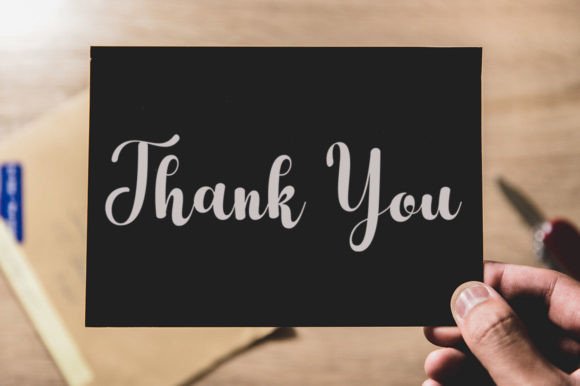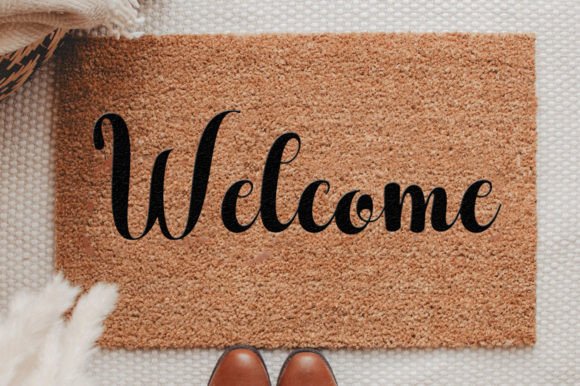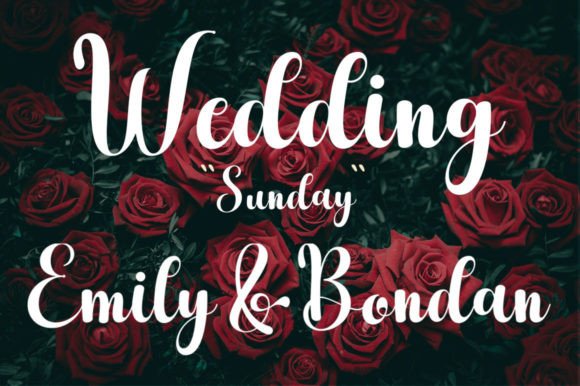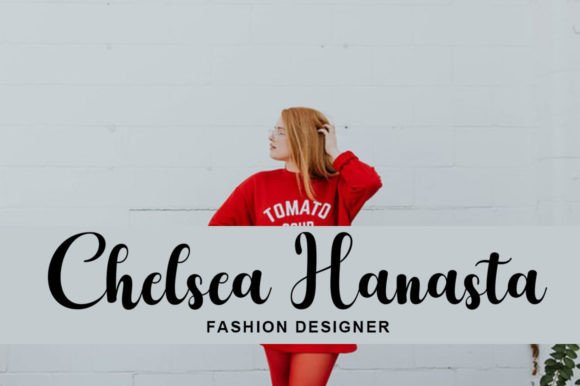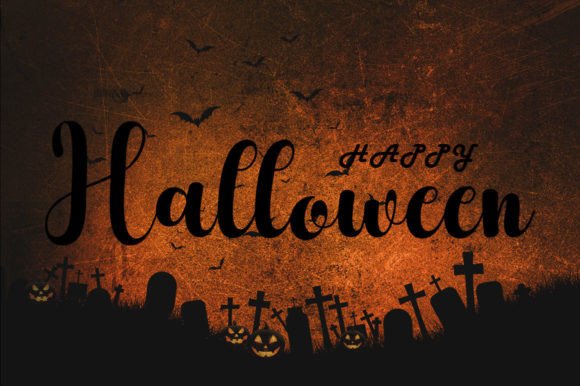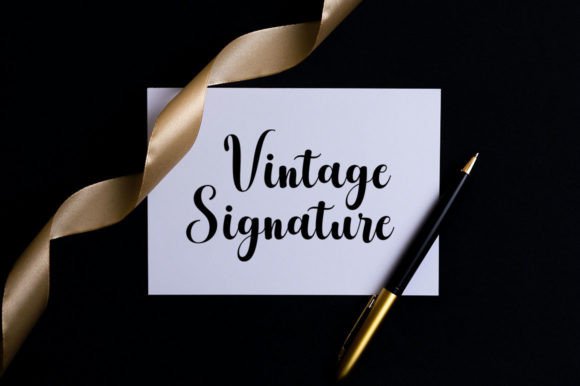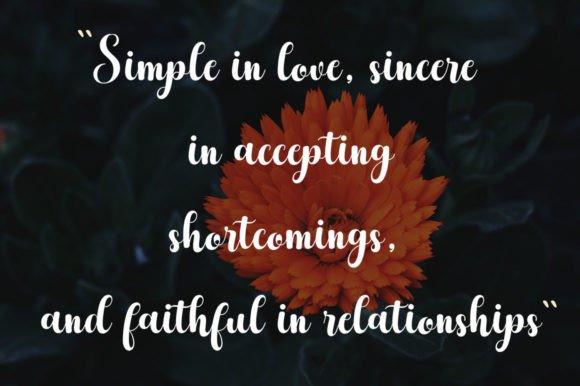
Bintaro Font
About Bintaro Font
**”Bintaro”** is a lively brush font that features a playful and bouncy baseline. This fun font injects a fresh and modern feel into your designs and is well-suited for a variety of creative projects, including quotes, cards, logos, and more. Its smooth lines and brush-like appearance make it an excellent choice for both crafters and designers looking to add a touch of liveliness to their work.
In the world of quotes, **”Bintaro”** adds a dynamic and energetic quality to your messages. Its bouncy baseline and brush strokes make your quotes stand out and convey a sense of enthusiasm.
Cards designed with **”Bintaro”** take on a fun and contemporary look. Whether it’s for greeting cards, invitations, or special occasions, this font adds a playful touch that resonates with recipients.
Logos created with **”Bintaro”** have a fresh and youthful appeal. Its brush-like appearance conveys a sense of creativity and modernity, making it suitable for brands looking to establish a lively and engaging visual identity.
Crafters and DIY enthusiasts can leverage **”Bintaro”** to add a handcrafted and artistic touch to their projects. Whether it’s for handmade goods, scrapbooking, or other craft endeavors, this font complements the creative spirit of crafters.
In summary, **”Bintaro”** is a fun and lively brush font that brings a sense of playfulness and modernity to a wide range of design projects. Its bouncy baseline, smooth lines, and brush-like appearance make it a valuable asset for both crafters and designers seeking to create engaging and dynamic designs.